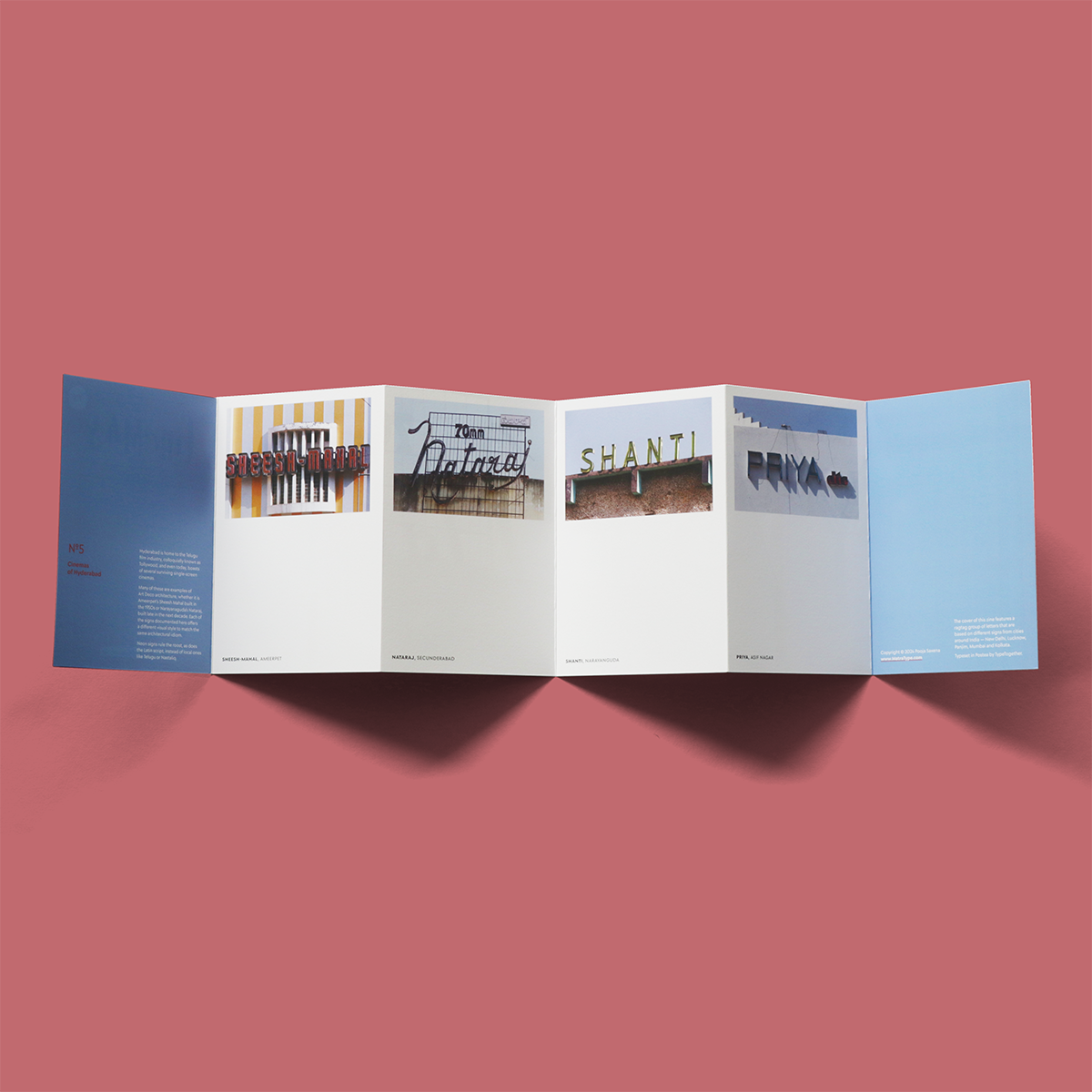
№5 Cinemas of Hyderabad
Home to the Telugu film industry, Hyderabad still boasts of several surviving single-screen cinemas, each with its own unique sign, often in rendered neon. Explore them in this pint-sized zine.
India Street Lettering zines celebrate the diversity of letterforms on signages in India’s streets. Like turns of a kaleidoscope, they illuminate patterns — established and unexpected — to expand our understanding of typographic forms and styles, and conventions for their use.